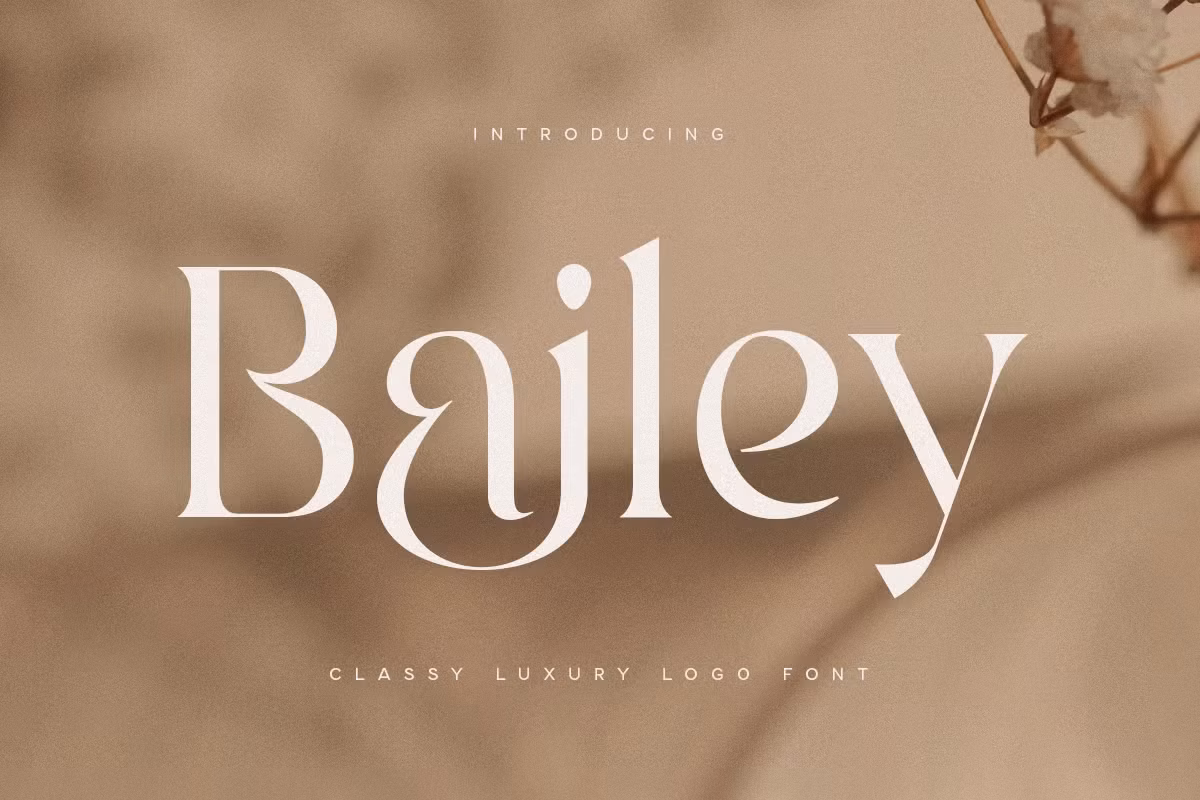
Bailey – Classy Luxury Logo Font Free Download is an elegant and sophisticated typeface designed to add a touch of luxury and class to your branding projects. With its sleek, clean lines and refined curves, this font is perfect for creating upscale logos, high-end fashion branding, luxury product packaging, and chic editorial designs.
Bailey – Classy Luxury Logo Font Free Download combines timeless elegance with modern simplicity, making it an ideal choice for professional projects that require a high-end, premium feel.